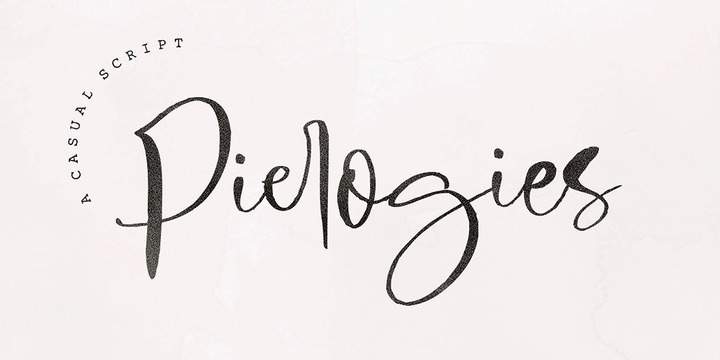
Pierogies Font
Pierogies Font is perfect for Eastern European restaurants, traditional Polish bakeries, comfort food truck branding, heritage cooking shows, ethnic festival signage, homestyle deli menus, grandmother's recipe collections, cultural food markets, traditional cooking workshops, and authentic Polish-American family businesses. This hearty typeface brings homemade warmth and traditional comfort to any food-focused design project.
Pierogies Font is exciting because it captures the heartwarming comfort and generous spirit of traditional Eastern European cooking, featuring rounded, welcoming letterforms that evoke the cozy atmosphere of grandmother's kitchen and the loving care that goes into preparing traditional comfort foods. Its homestyle character instantly conveys authenticity, warmth, and the nourishing comfort of heritage recipes.
Pierogies Font family includes Light, Regular, Medium, and Bold weights with homestyle alternates, comfort food flourishes, traditional ornamental elements, and ethnic cooking symbols that enhance the heritage aesthetic, providing food designers with authentic tools for creating typography that celebrates the warming tradition of Eastern European comfort cuisine.
Heritage food designers love Pierogies Font for its exceptional ability to evoke specific cultural food traditions and create immediate associations with homemade comfort through carefully crafted letterforms. The font's warm character and traditional details create instant connections with family recipes, kitchen warmth, and the satisfying comfort that comes from authentic heritage foods prepared with love and cultural pride.
The cultural authenticity of Pierogies Font draws inspiration from Eastern European culinary traditions, handwritten family recipes, and the rich food heritage of Polish and Slavic cooking cultures, making it particularly effective for restaurants, bakeries, and food brands seeking to establish authentic connections with traditional comfort food experiences. Culinary teams working on heritage food projects find this font essential.
Whether used for traditional Polish restaurants, heritage food festivals, or authentic comfort food brands, Pierogies Font delivers the perfect combination of cultural authenticity and homestyle warmth. Its comfort appeal and heritage tradition make it an indispensable choice for food businesses that celebrate traditional recipes, family cooking heritage, and the nourishing comfort of authentic Eastern European cuisine.